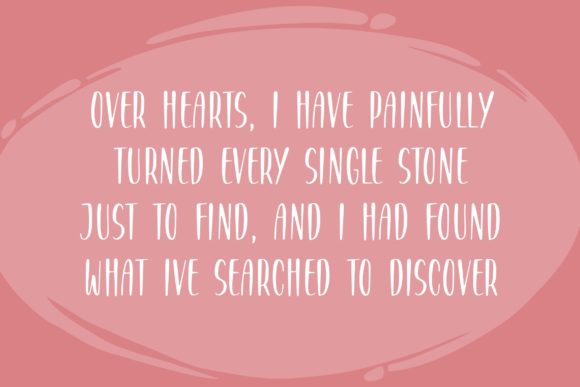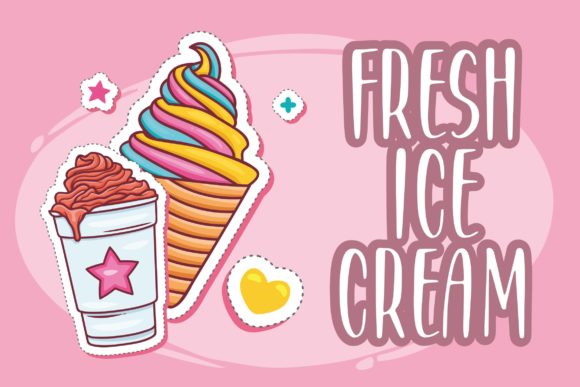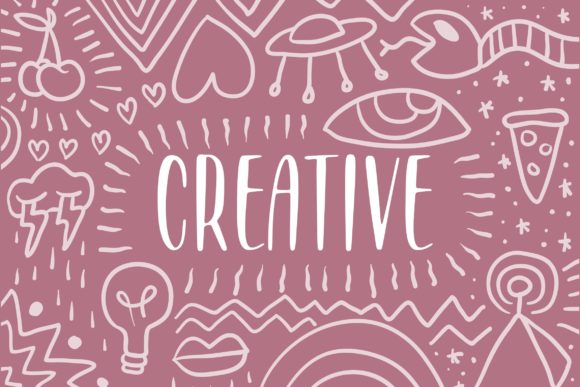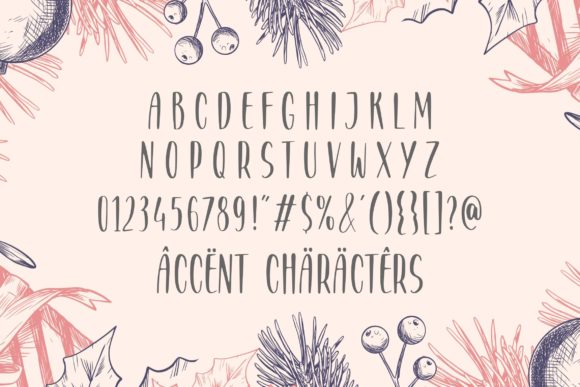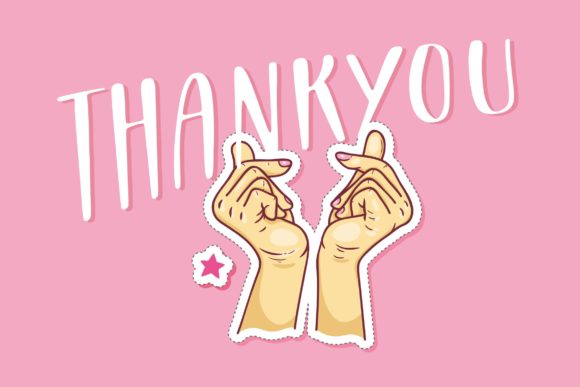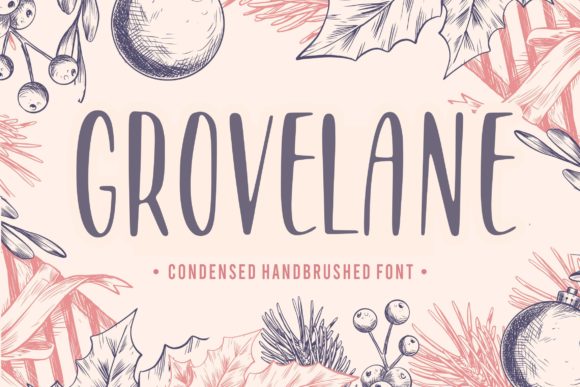
Discover the Elegance of Grovelane Font: A Simple yet Powerful Display Font
Are you tired of using fonts that are too ornate or overpowering? Look no further than Grovelane Font, a simple and clean display font that’s perfect for a variety of design projects. With its relaxed and neat aesthetic, Grovelane is the ideal choice for designers and crafters who want to add a touch of elegance to their work.
What is Grovelane Font?
Grovelane Font is a modern sans-serif font that’s designed to be both versatile and easy to read. Its clean lines and simple shape make it perfect for use in a variety of designs, from logos and branding materials to posters, flyers, and more. Whether you’re working on a digital project or a print project, Grovelane Font is a great choice.
Key Features of Grovelane Font
• Simple and Clean Design: Grovelane Font features a simple and clean design that’s easy on the eyes. Its straightforward shape makes it perfect for use in a variety of designs.
• Versatile: Grovelane Font is a versatile font that can be used in a variety of design projects, from logos and branding materials to posters, flyers, and more.
• Easy to Read: Despite its simple design, Grovelane Font is easy to read, even at small sizes.
• Modern Aesthetic: Grovelane Font has a modern aesthetic that’s perfect for designers and crafters who want to add a touch of elegance to their work.
Why Choose Grovelane Font?
So why choose Grovelane Font over other display fonts? Here are just a few reasons:
• Unique yet Familiar: Grovelane Font has a unique shape that’s both familiar and easy to read. It’s perfect for designers who want to add a touch of personality to their work without overpowering their message.
• Highly Legible: Grovelane Font is highly legible, even at small sizes. This makes it perfect for use in a variety of designs, from logos and branding materials to body text.
• Easy to Pair: Grovelane Font is easy to pair with other fonts, making it perfect for use in multi-font designs.
How to Use Grovelane Font in Your Designs
Grovelane Font is a versatile font that can be used in a variety of design projects. Here are just a few ideas to get you started:
• Logos and Branding Materials: Use Grovelane Font to create a simple yet elegant logo or branding materials.
• Posters and Flyers: Grovelane Font is perfect for use in posters and flyers, where its clean design and easy readability make it easy to read.
• Digital Projects: Grovelane Font is a great choice for digital projects, such as website headers, social media graphics, and more.
Tips for Getting the Most out of Grovelane Font
Here are just a few tips for getting the most out of Grovelane Font:
• Experiment with Different Sizes: Grovelane Font looks great at a variety of sizes, from small and delicate to large and bold.
• Pair with Other Fonts: Grovelane Font is easy to pair with other fonts, making it perfect for use in multi-font designs.
• Use in Combination with Images: Grovelane Font looks great when used in combination with images, making it perfect for use in designs that feature photography or illustrations.
Font Name Grovelane Font
Author Balpirick
Grovelane Font is a simple and clean display font that’s perfect for a variety of design projects. With its relaxed and neat aesthetic, Grovelane is the ideal choice for designers and crafters who want to add a touch of elegance to their work. Whether you’re working on a logo, poster, or digital project, Grovelane Font is a great choice. So why not give it a try and see the difference it can make in your designs?